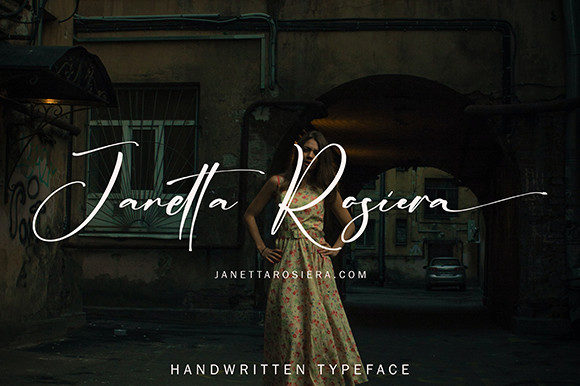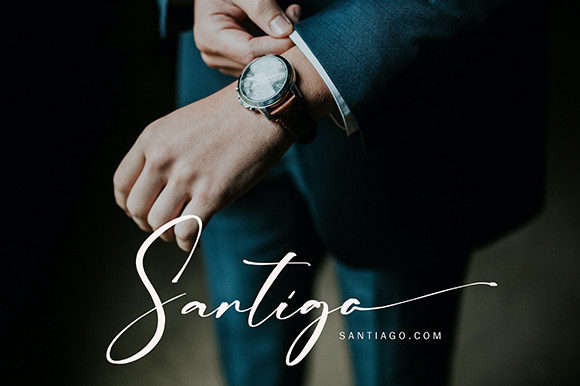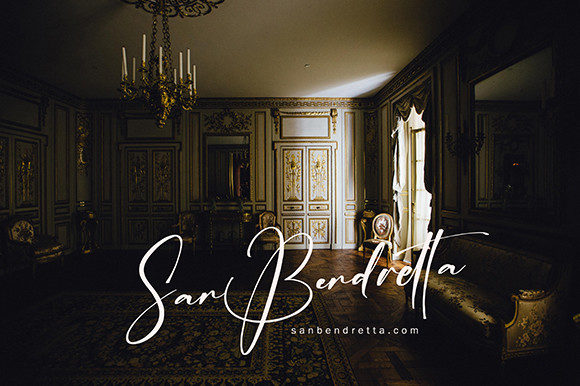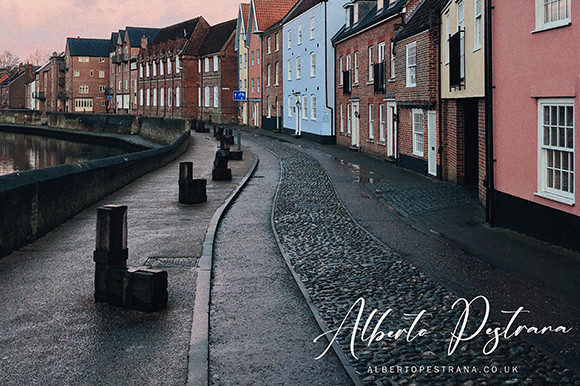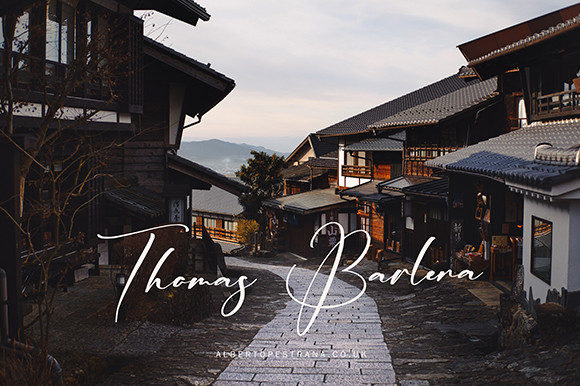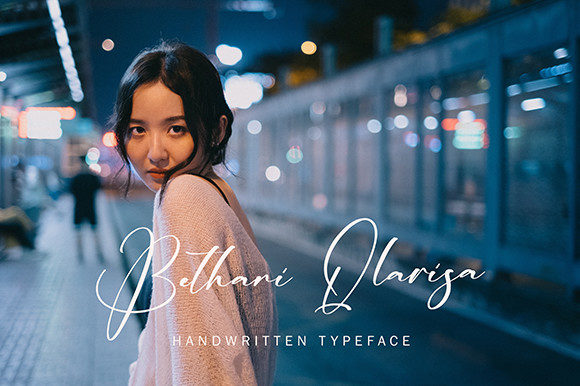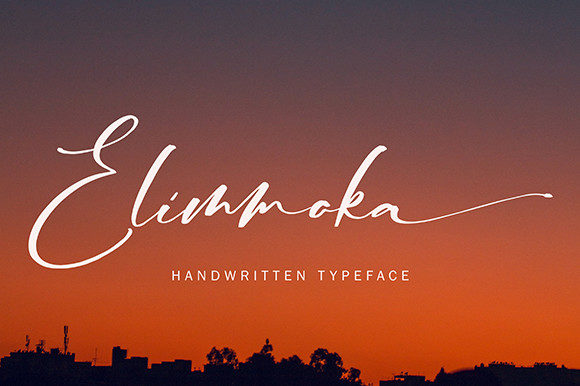
Introducing Elimmoka Font: The Epitome of Elegance and Sophistication
In the realm of typography, few fonts have managed to capture the essence of elegance and sophistication as effortlessly as Elimmoka. This stunning script font, characterized by its thin lettering and graceful strokes, is a masterpiece that can elevate any design project to new heights. Whether you’re a seasoned designer or a crafty enthusiast, Elimmoka is sure to captivate you with its ravishing style and versatility.
The Distinctive Features of Elimmoka Font
So, what makes Elimmoka stand out from the crowd? For starters, its thin lettering and fluid script style lend a touch of refinement and luxury to any design. The font’s graceful strokes and delicate curves create a mesmerizing visual effect, perfect for crafting beautiful wedding invitations, elegant branding materials, or sophisticated packaging designs.
Another notable feature of Elimmoka is its PUA (Private Use Area) encoding. This means that users can access all glyphs and swashes with ease, allowing for greater flexibility and creativity in design. With Elimmoka, you can effortlessly add intricate details and flourishes to your work, taking it from ordinary to extraordinary.
Endless Design Possibilities with Elimmoka
Elimmoka’s versatility is one of its most compelling attributes. This font can be used in a wide range of design applications, from:
• Wedding and event invitations: Add a touch of romance and sophistication to your wedding stationery or event invitations.
• Branding and packaging: Elevate your brand’s visual identity with Elimmoka’s elegant script style.
• Stationery and greeting cards: Create beautiful, one-of-a-kind stationery and greeting cards that showcase your personality.
• Signage and display design: Use Elimmoka to create eye-catching signage and display designs that command attention.
Why Designers and Crafters Love Elimmoka
Elimmoka has quickly become a favorite among designers and crafters, and for good reason. Here are just a few reasons why:
• Ease of use: Elimmoka’s PUA encoding makes it easy to access all glyphs and swashes, streamlining the design process.
• Flexibility: This font can be used in a variety of design applications, from digital projects to print materials.
• Unique style: Elimmoka’s distinctive script style sets it apart from more traditional fonts, allowing designers to create truly unique and memorable designs.
Tips for Getting the Most Out of Elimmoka
To unlock the full potential of Elimmoka, here are a few design tips to keep in mind:
• Experiment with font sizes: Elimmoka’s thin lettering looks stunning in larger font sizes, but it can also be effective in smaller sizes for added elegance.
• Play with swashes and glyphs: Take advantage of Elimmoka’s PUA encoding to add intricate details and flourishes to your design.
• Pair with complementary fonts: Combine Elimmoka with other fonts to create visually interesting and dynamic designs.
In conclusion, Elimmoka is a font that embodies the very essence of elegance and sophistication. Its thin lettering, graceful script style, and PUA encoding make it an ideal choice for designers and crafters looking to create stunning designs. Whether you’re working on a wedding invitation, branding project, or packaging design, Elimmoka is sure to impress. So why wait? Fall in love with Elimmoka’s ravishing style and take your designs to new heights!